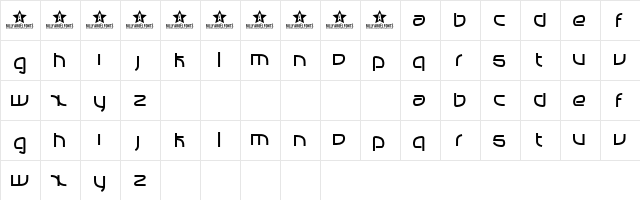
MANABU_ Regular
| Foundry | Billy Argel |
| Designer | Billy Argel |
Design Context for MANABU_ Typeface
MANABU_ offers clean, dependable letterforms without strong stylistic allegiance, making it a practical choice for designers who need flexibility.